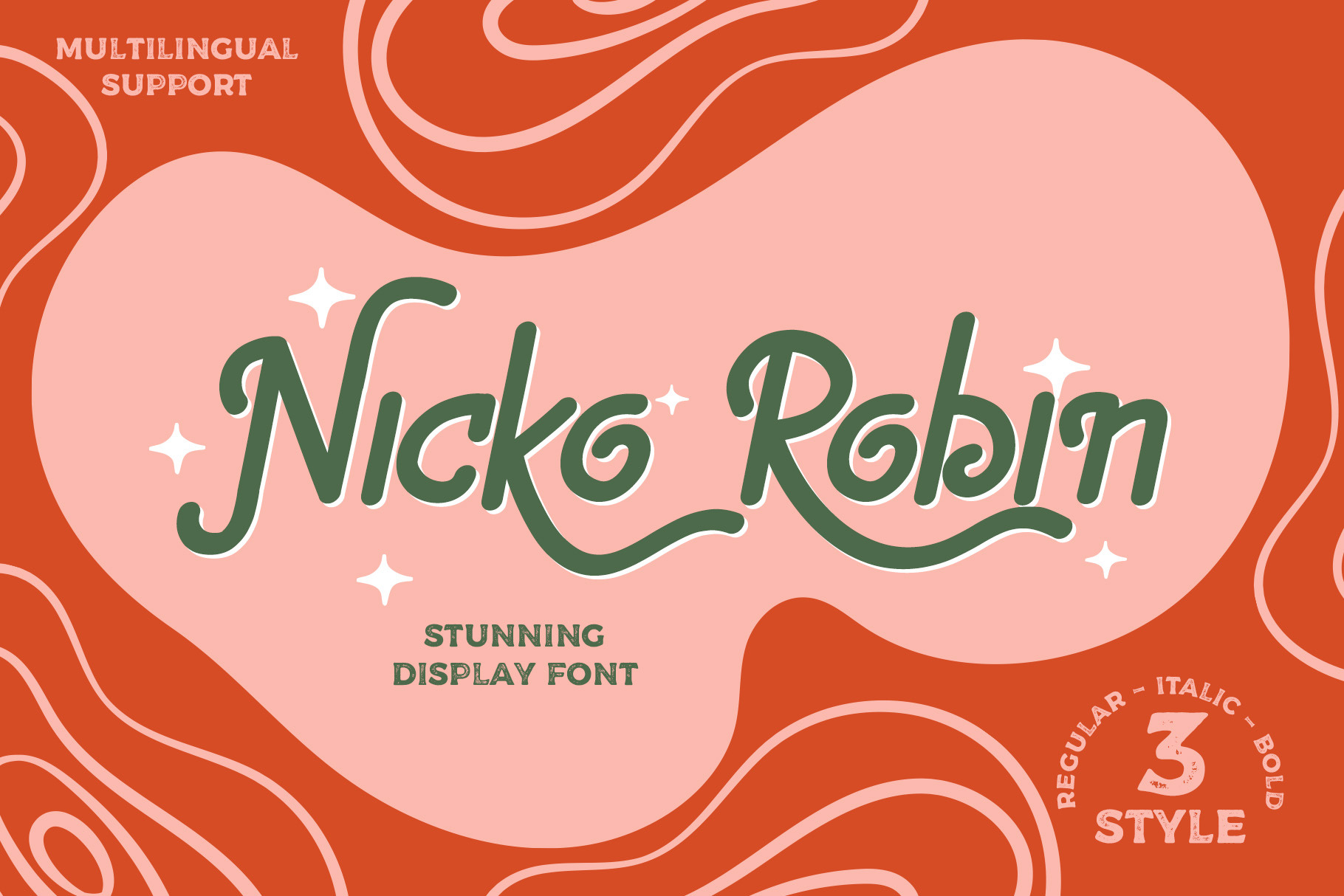
Nicko Robin a Stunning Display Font
I proudly introduce to you Nicko Robin a stunning display font, very unique and classic look font. Can make it easier to convey the message in your design. Use for awesome display, Logo, labeling, clothing, movie screen, poster, movie title, gigs, album covers, logos, and much more.
- 3 Style of font ( Regular, Italic, Bold )
- Numbering
- Character
- Stylist Alternate